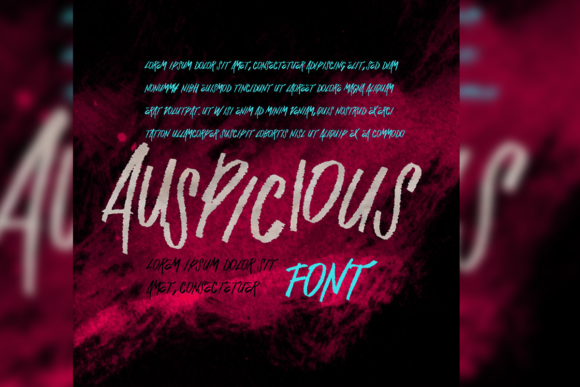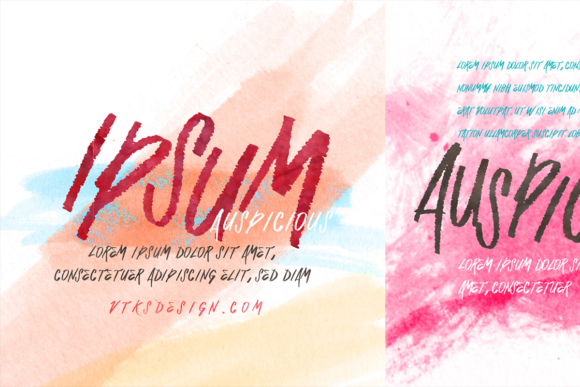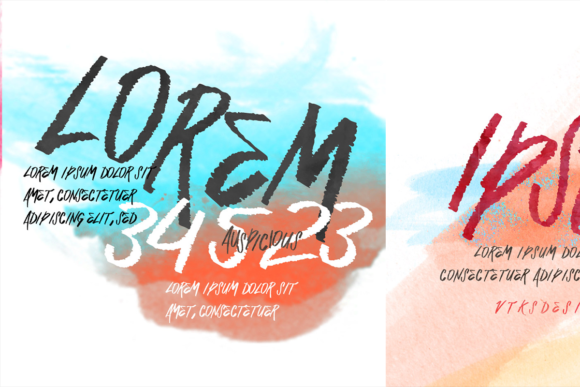
Auspicious Font
About Auspicious Font
Auspicious is a brand new stylish handwritten font waiting for you to use it in your next project.
Create beautiful logos, posters, headlines, social media posts and much more with this amazing new font.